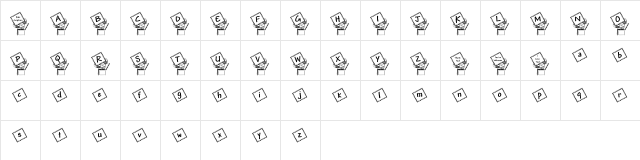
JackInTheBox_KG Regular
Design Context for JackInTheBox_KG
JackInTheBox_KG is a composed and adaptable typeface that performs quietly and consistently across a wide range of design contexts.